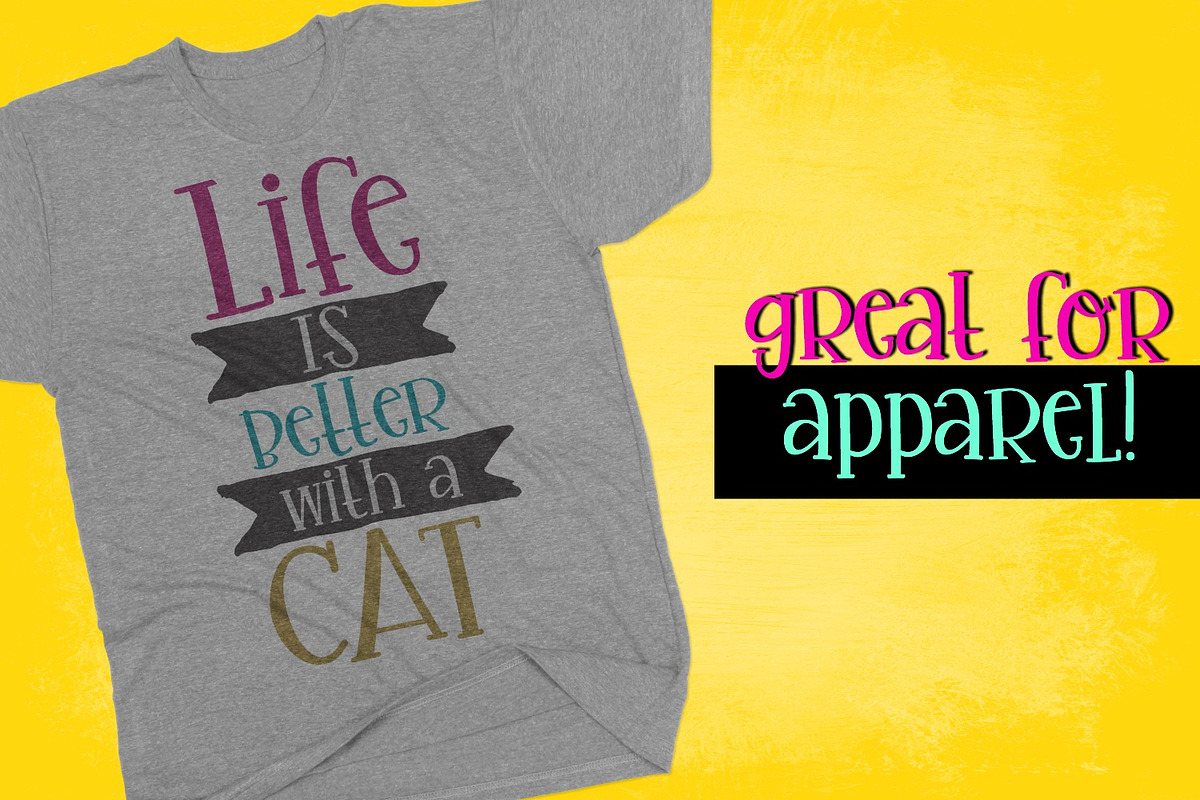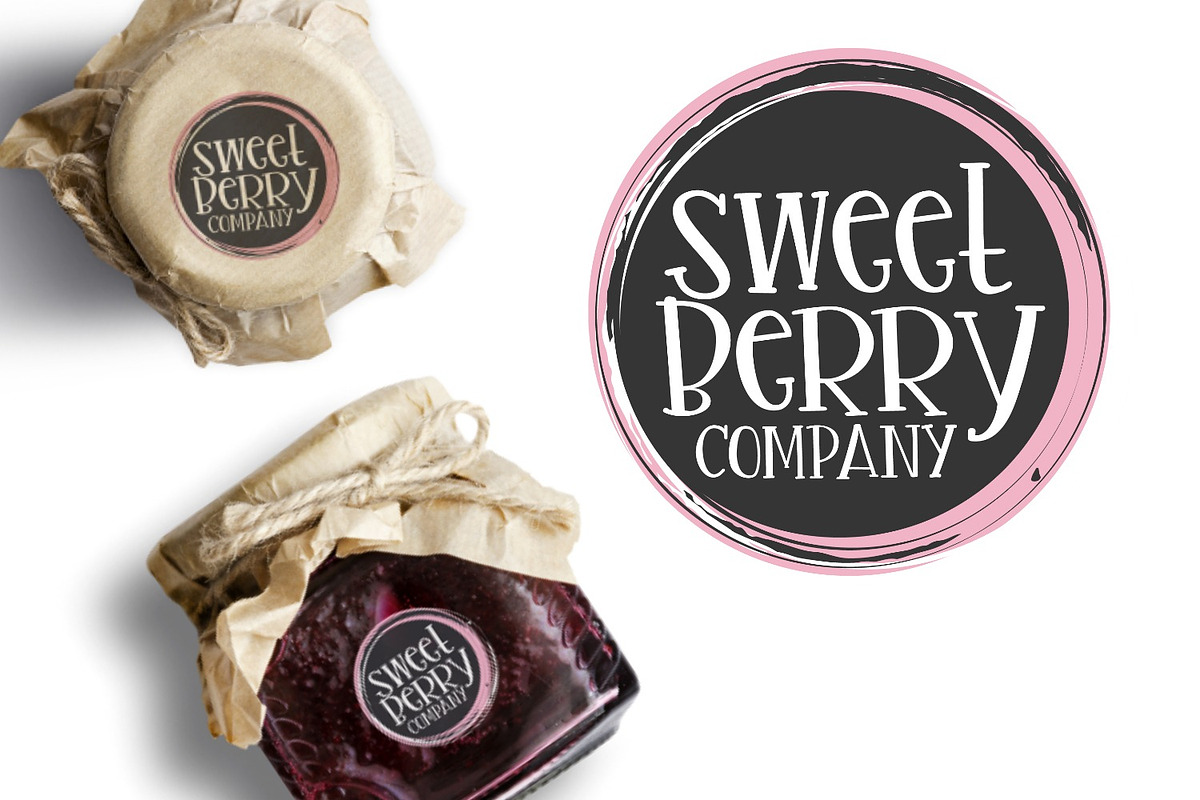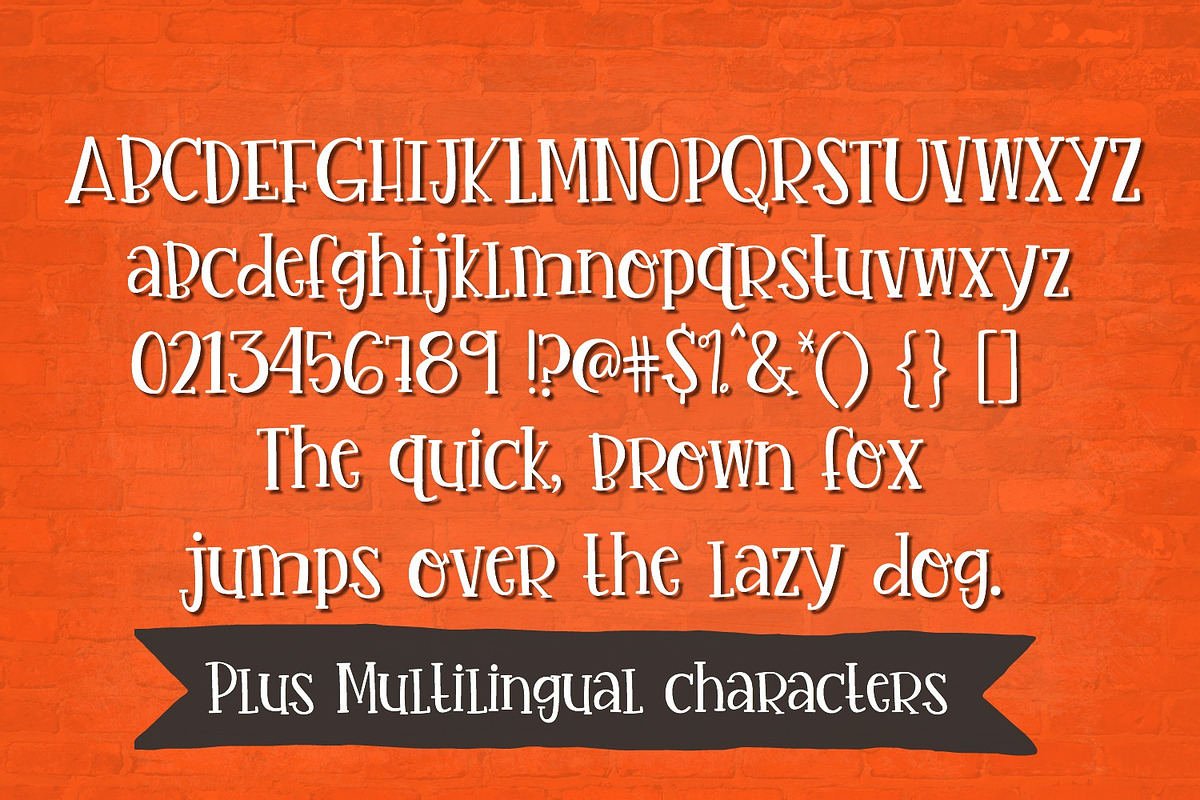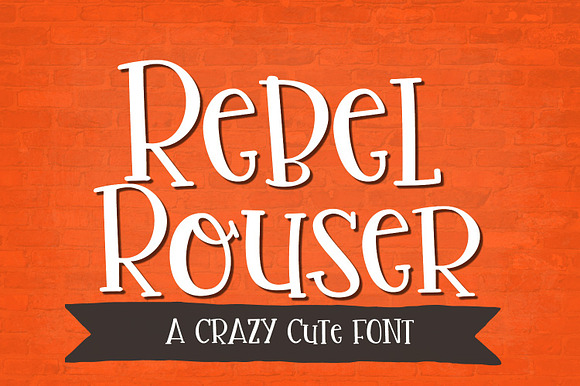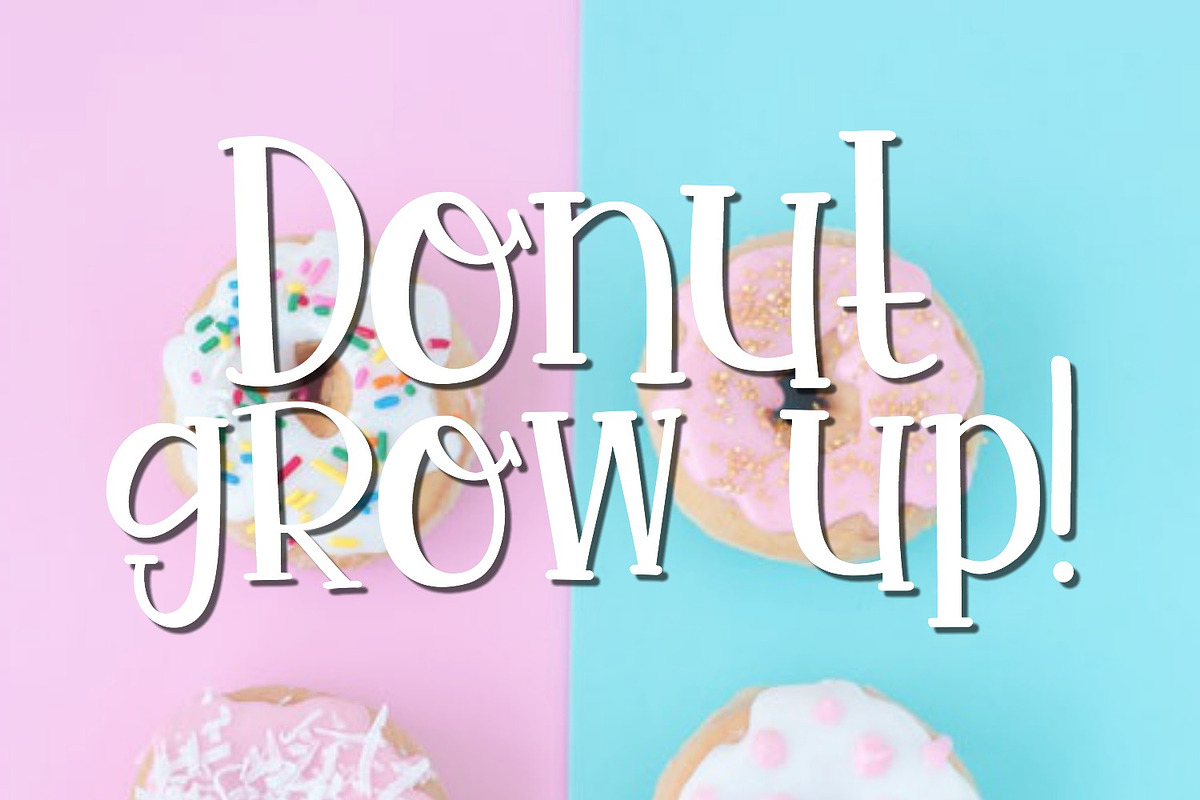
NEW!! Rebel Rouser Font
Rebel Rouser is a fun, quirky handwritten serif font jam packed with handwritten charm and personality! It supports English and most European languages.
This font is perfect for many uses such as apparel, decor, drink ware, branding and more!